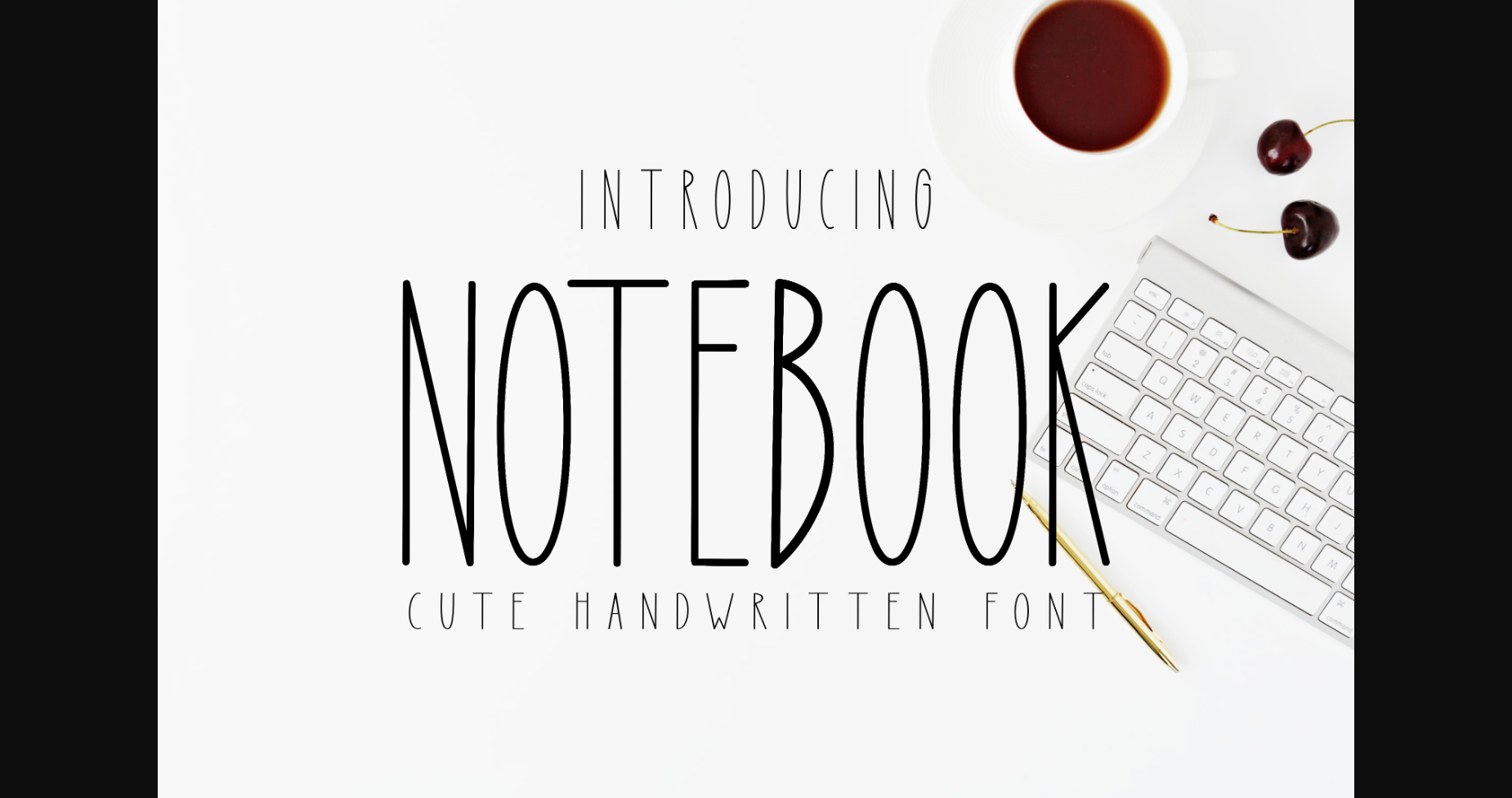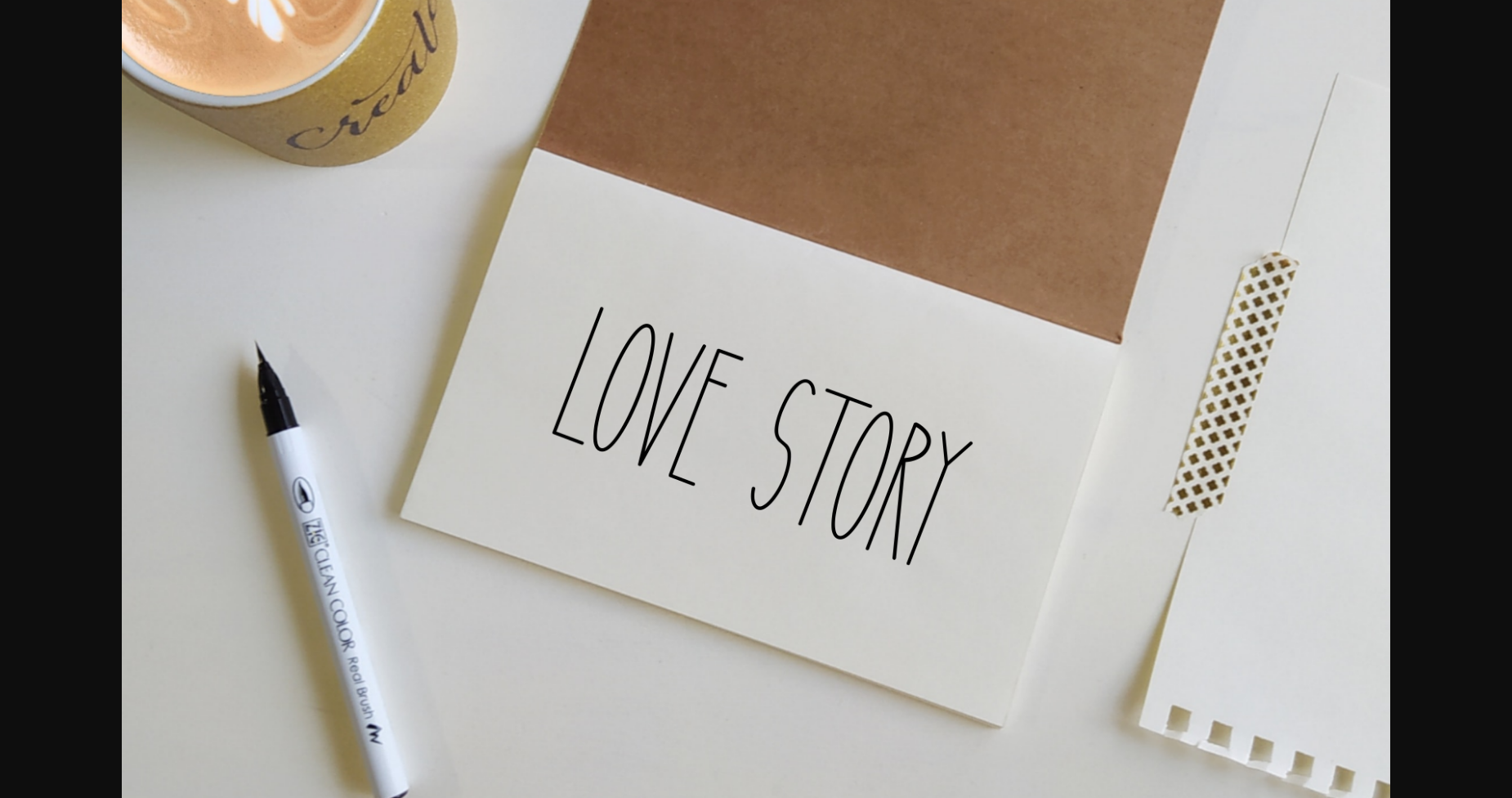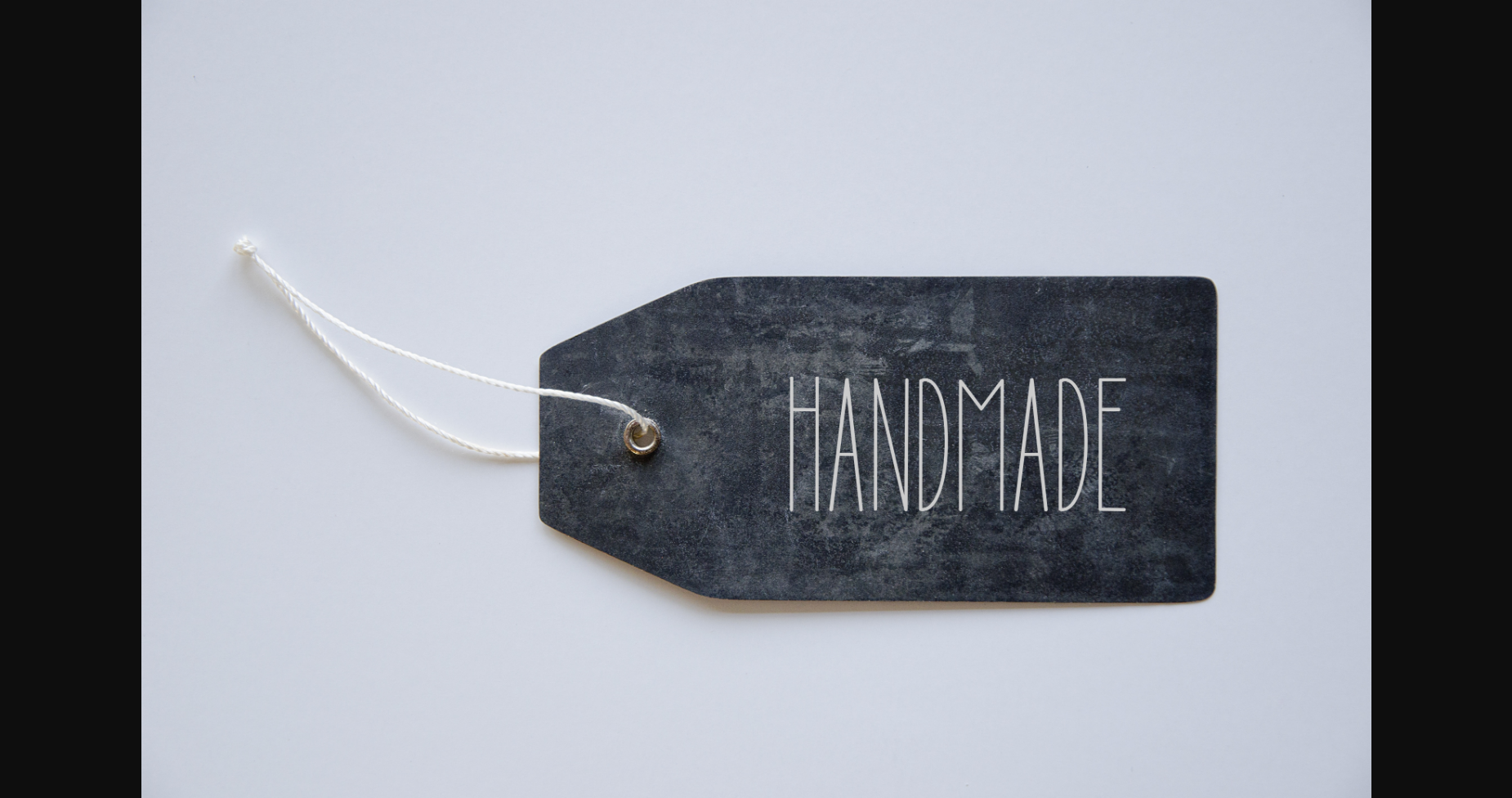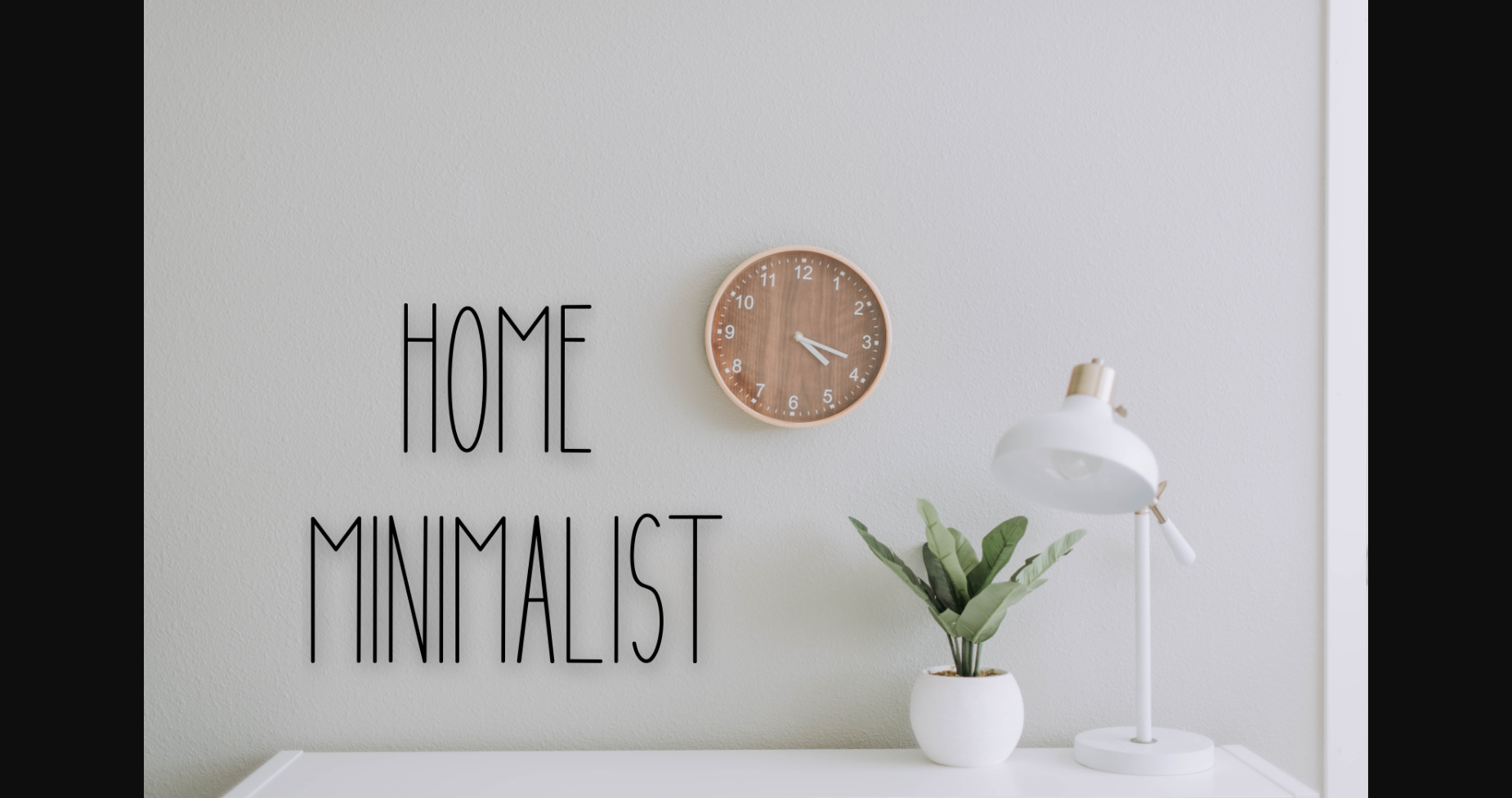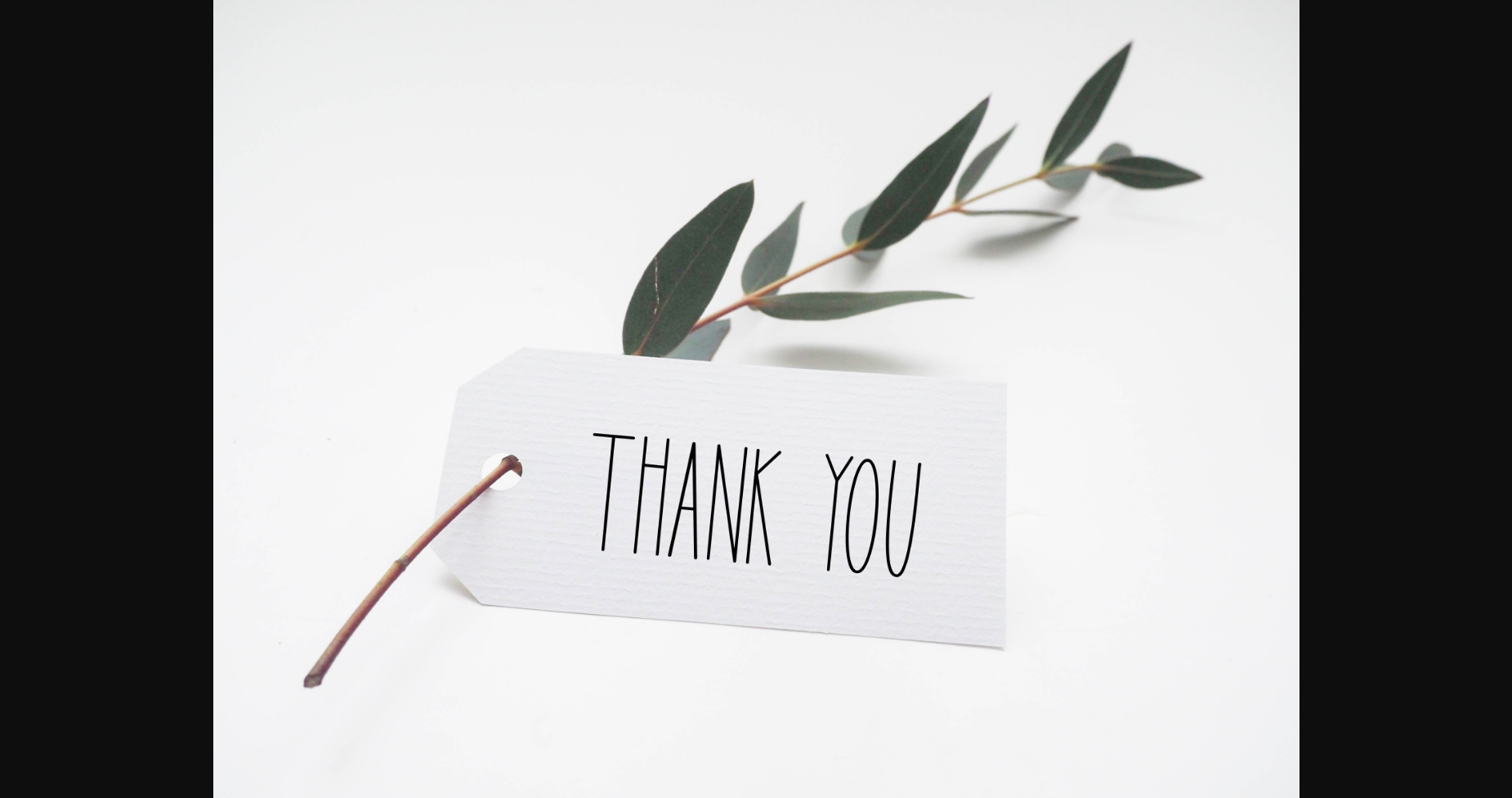
HomeSans Serif FontsNotebook Font Sans Serif Fonts Notebook Font FacebookXPinterestWhatsApp 1 of 7 ... Notebook Font Poster 2... Notebook Font Poster 3... Notebook Font Poster 4... Notebook Font Poster 5... Notebook Font Poster 6... Notebook Font Poster 7... About Notebook Font Notebook is a simple, clean, and neat sans serif font. No matter the topic, this font will be an incredible asset to your fonts’ library, as it has the potential to elevate any creation! DOWNLOAD NOW People also explored Artless Font Khorla Font Hellowin Font Antique Slabserif JNL Font Limon Mint – Fresh Script Font Tamarac JNL Font Today Holiday Font Vermandois Rednotes Font 314 0 TagsNotebook Font Previous articleCameo FontNext articleHarrington Family Font LEAVE A REPLY Cancel reply Comment: Please enter your comment! Name:* Please enter your name here Email:* You have entered an incorrect email address! Please enter your email address here Website: Save my name, email, and website in this browser for the next time I comment. Personal Use Free Lumber Personal Use Free Read more about this font Winner Personal Use Free Read more about this font Sunshine Tropical Font Personal Use Free Read more about this font Super Caramel Font Personal Use Free Read more about this font BLOG Free Fonts Risk: Why Free Fonts Can Be Dangerous for Designers Free Fonts Risk: Why Free Fonts Can Be Dangerous for Designers Using free fonts is a common practice in web and graphic design. However, the... Best Fonts for YouTube Videos: Make Your Thumbnails Stand Out Where to Buy American Fonts Online in 2024 Modern Sans-Serif Fonts That Brands Love in 2025